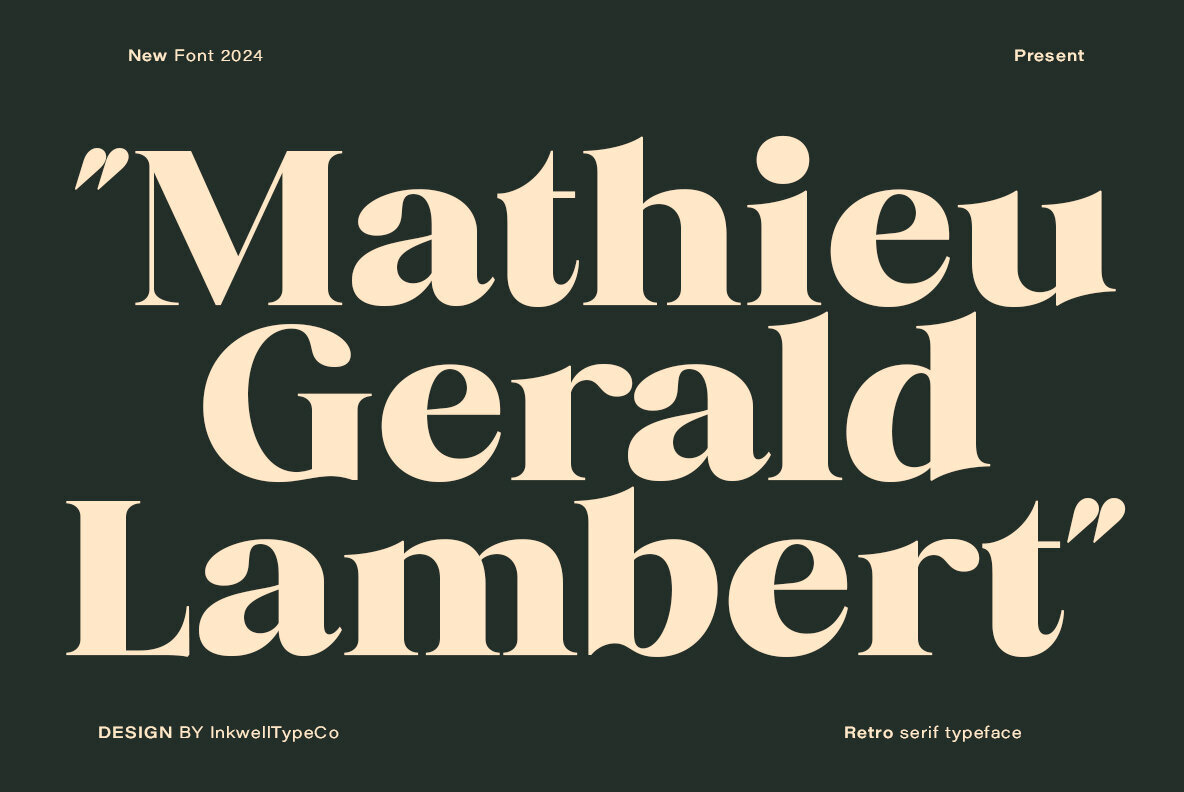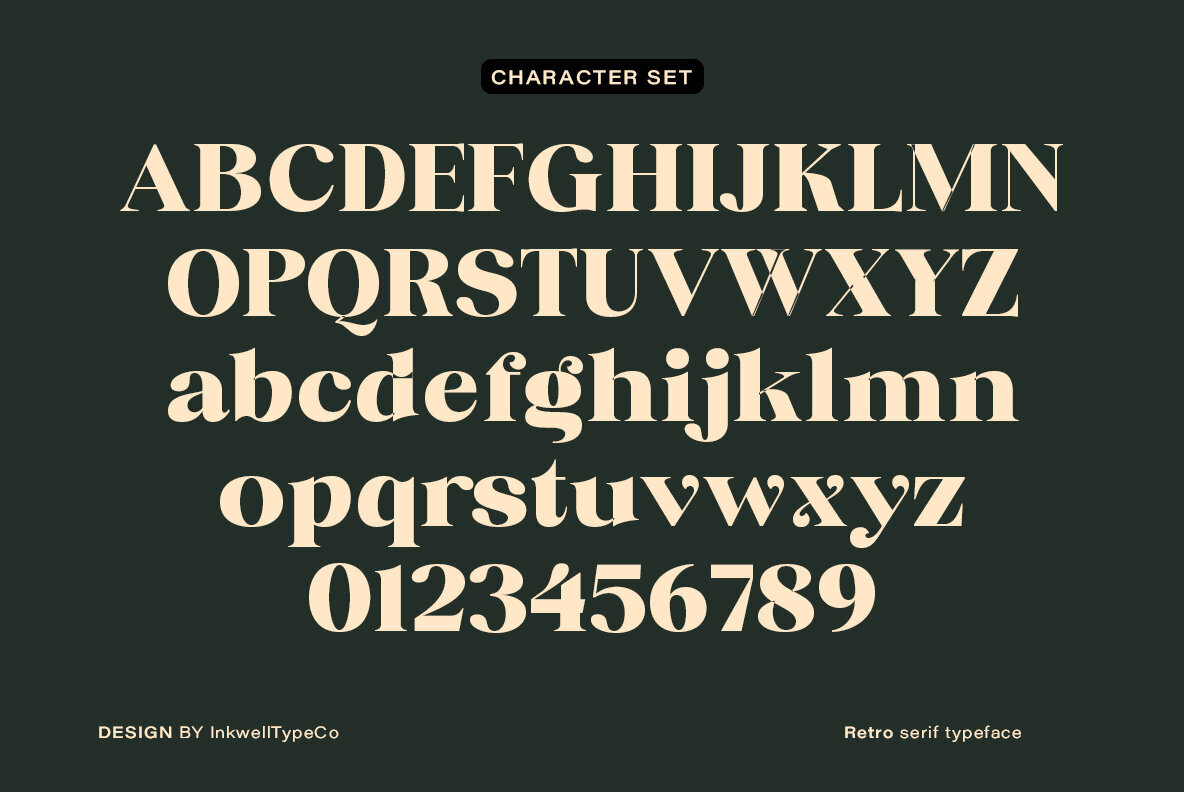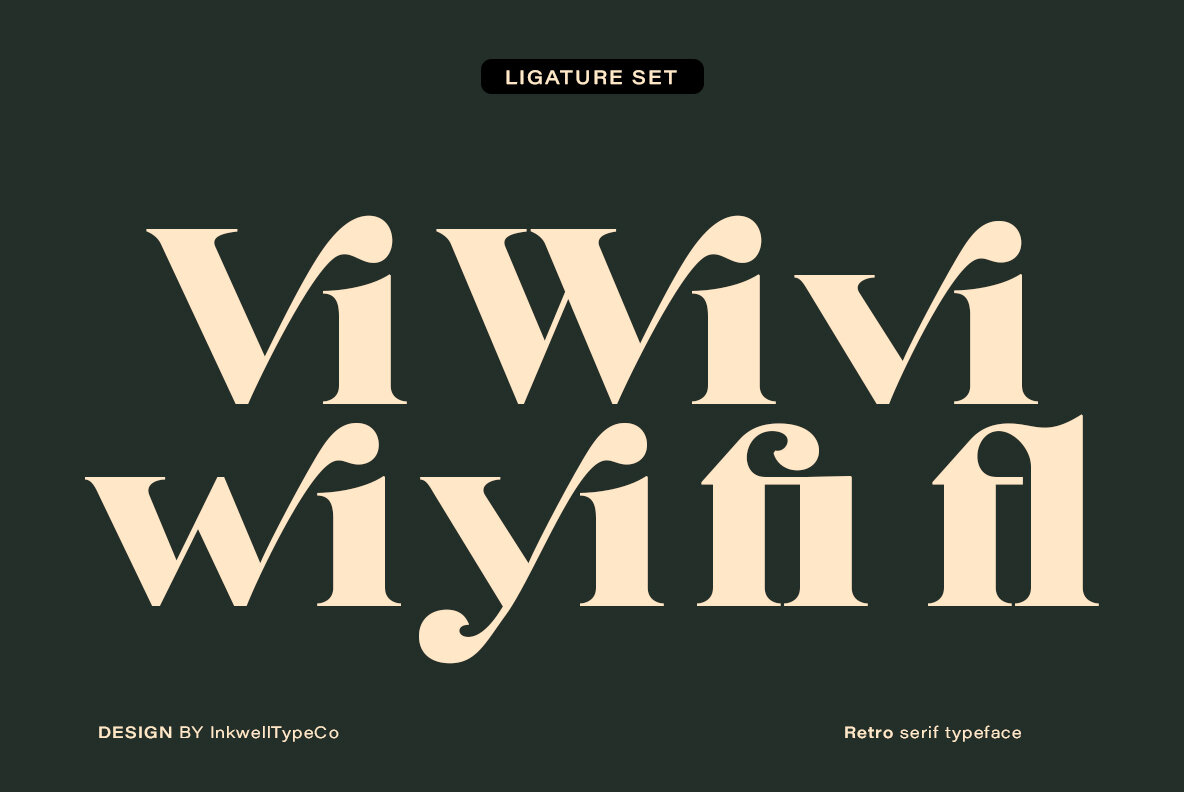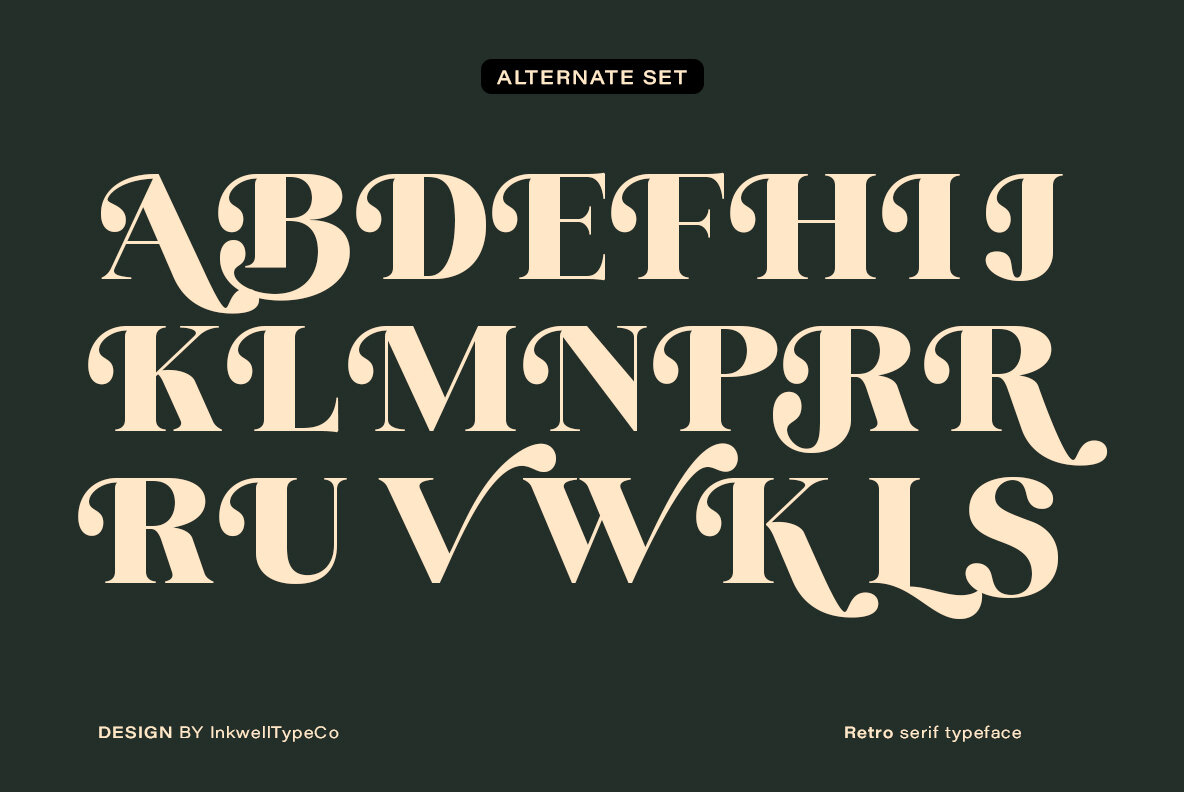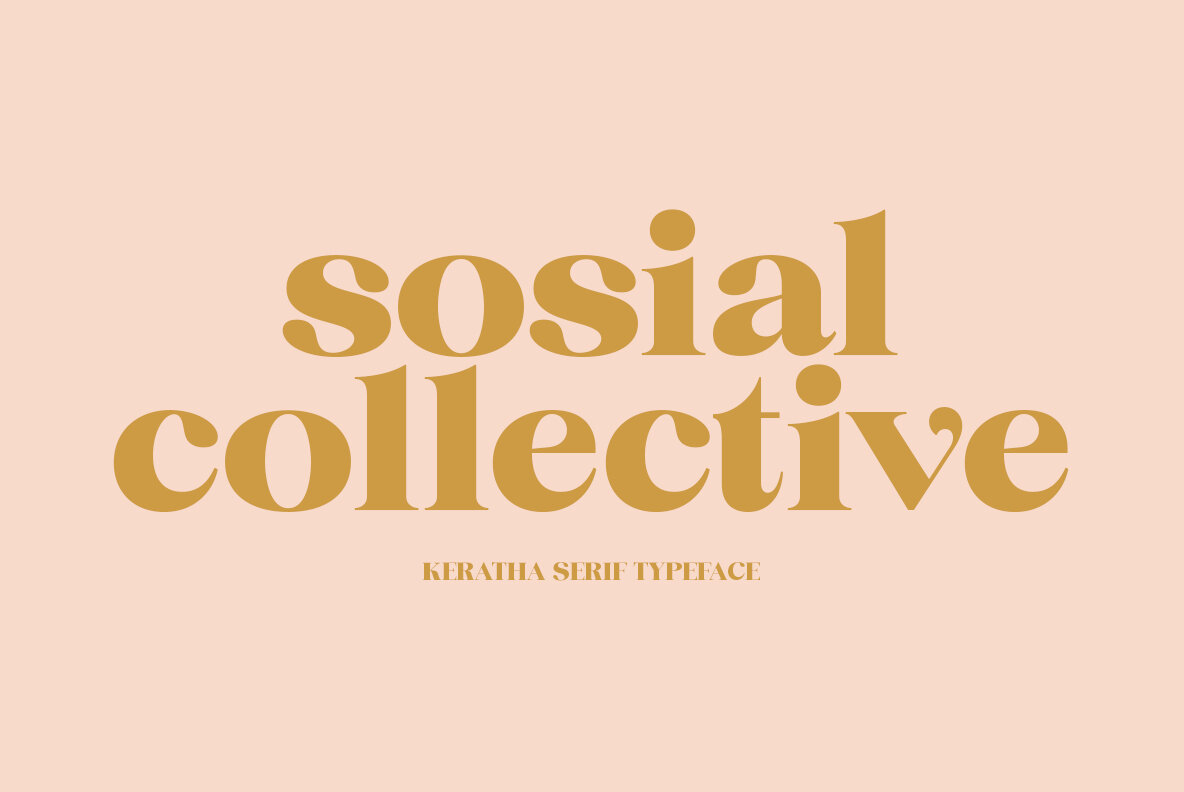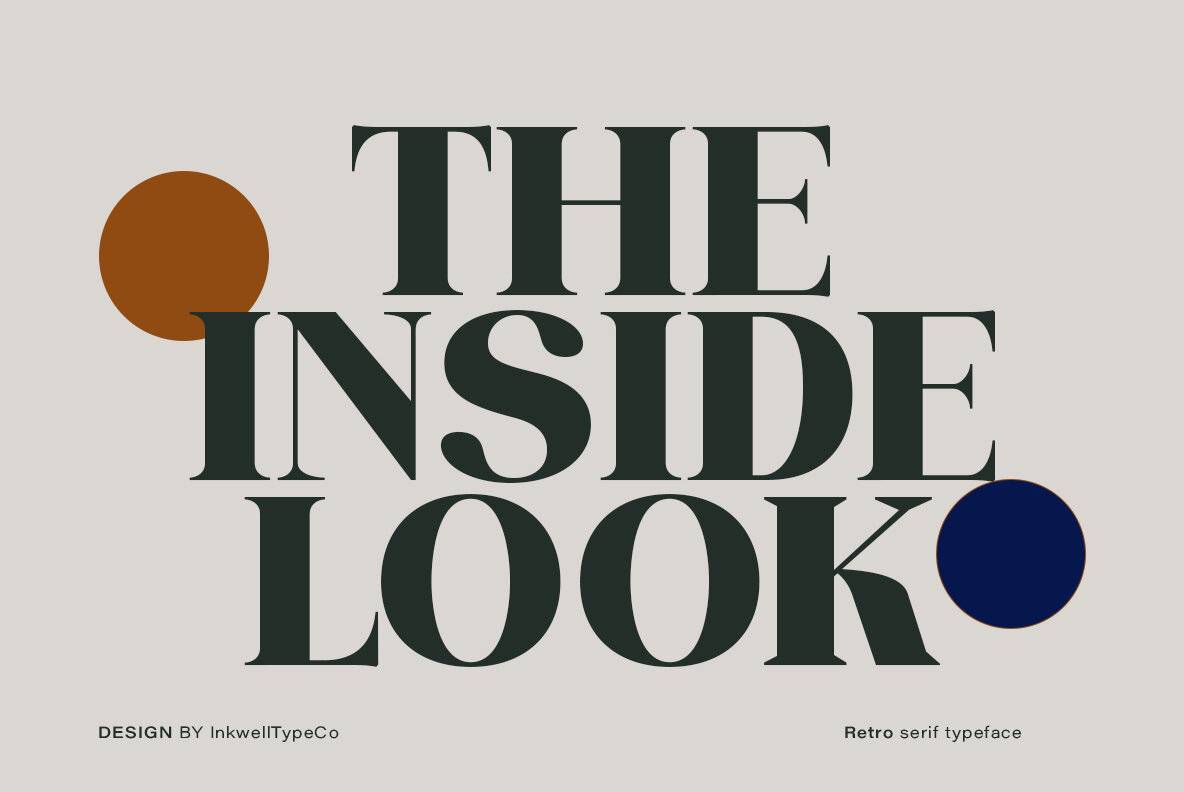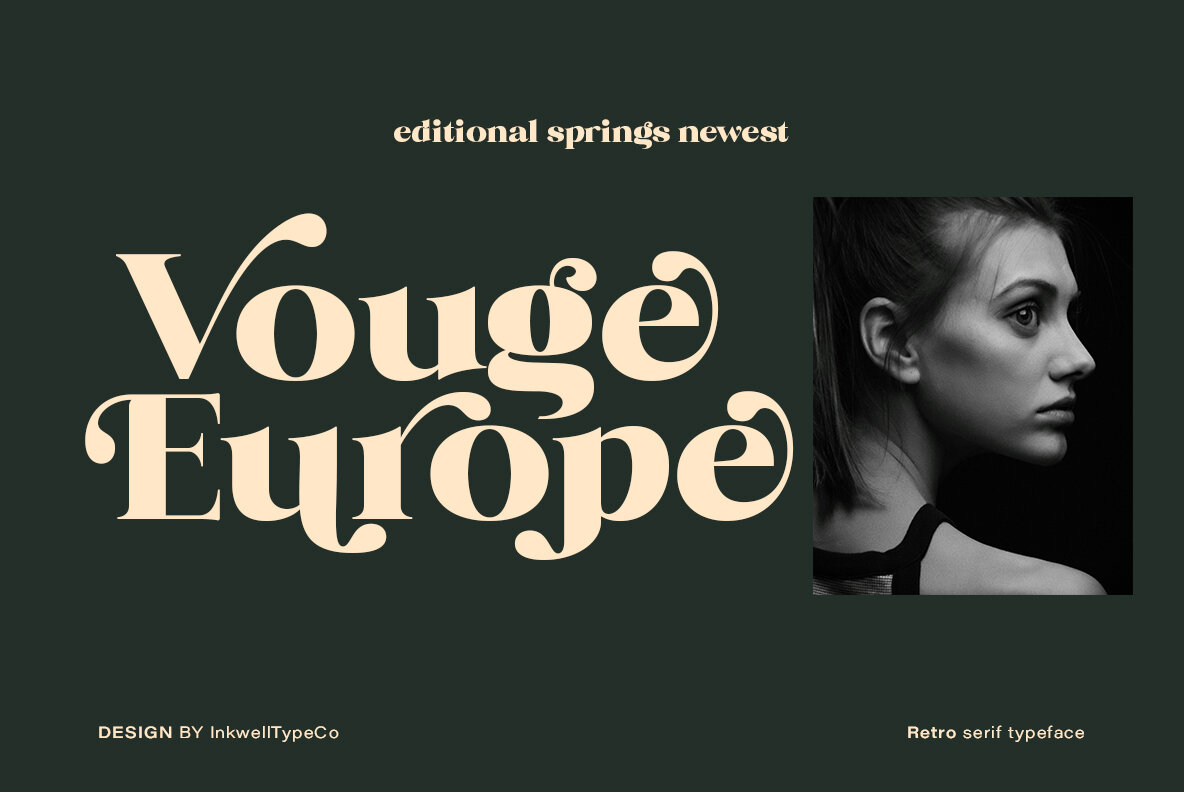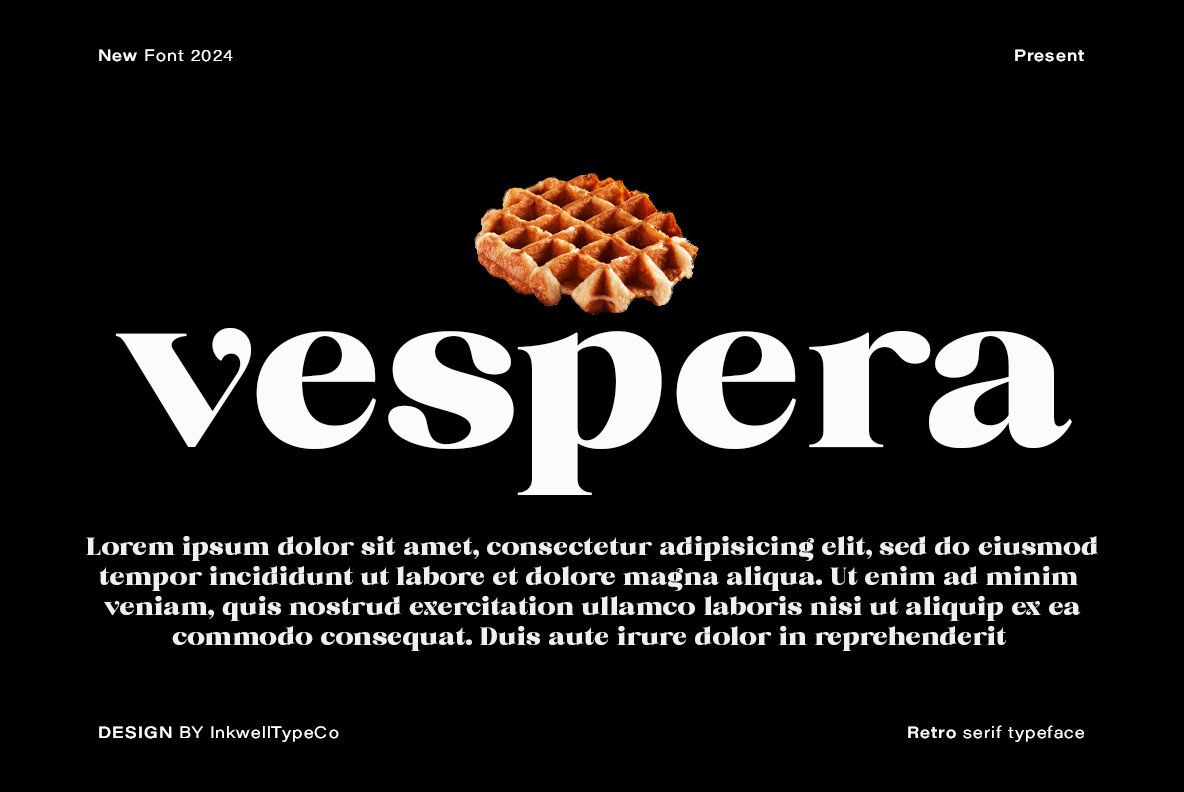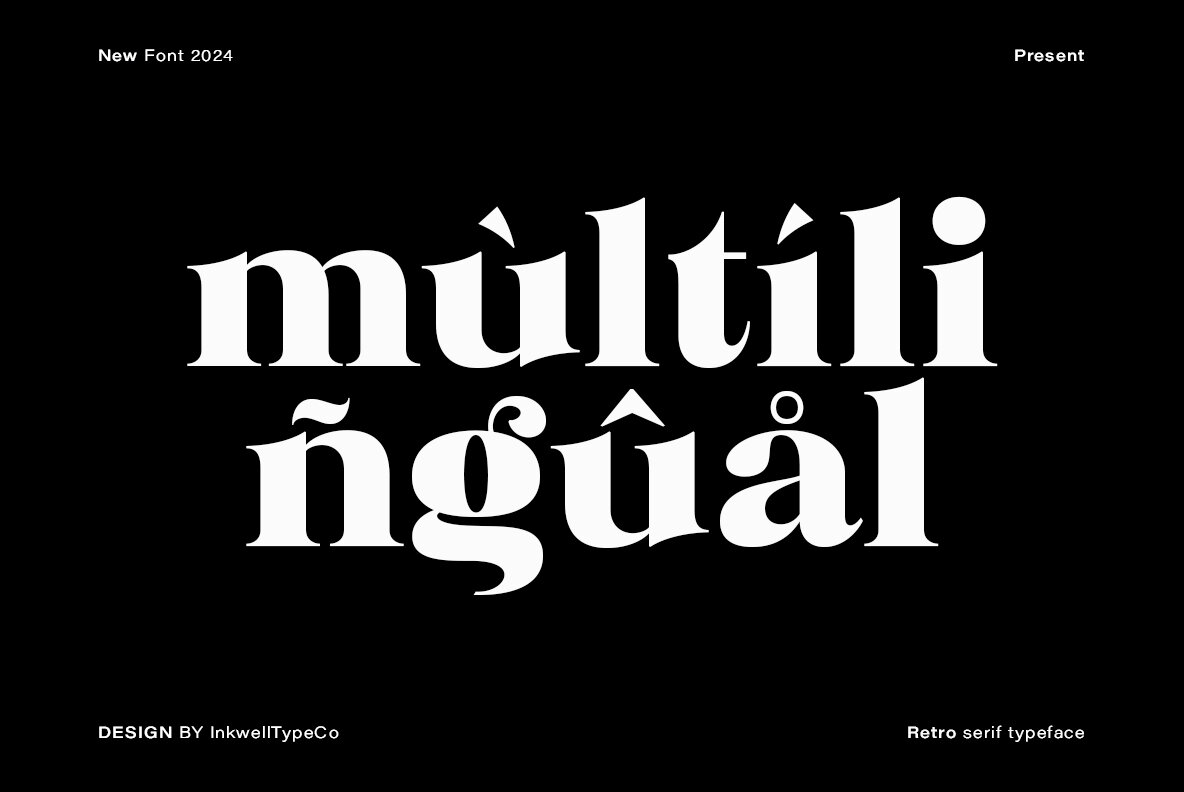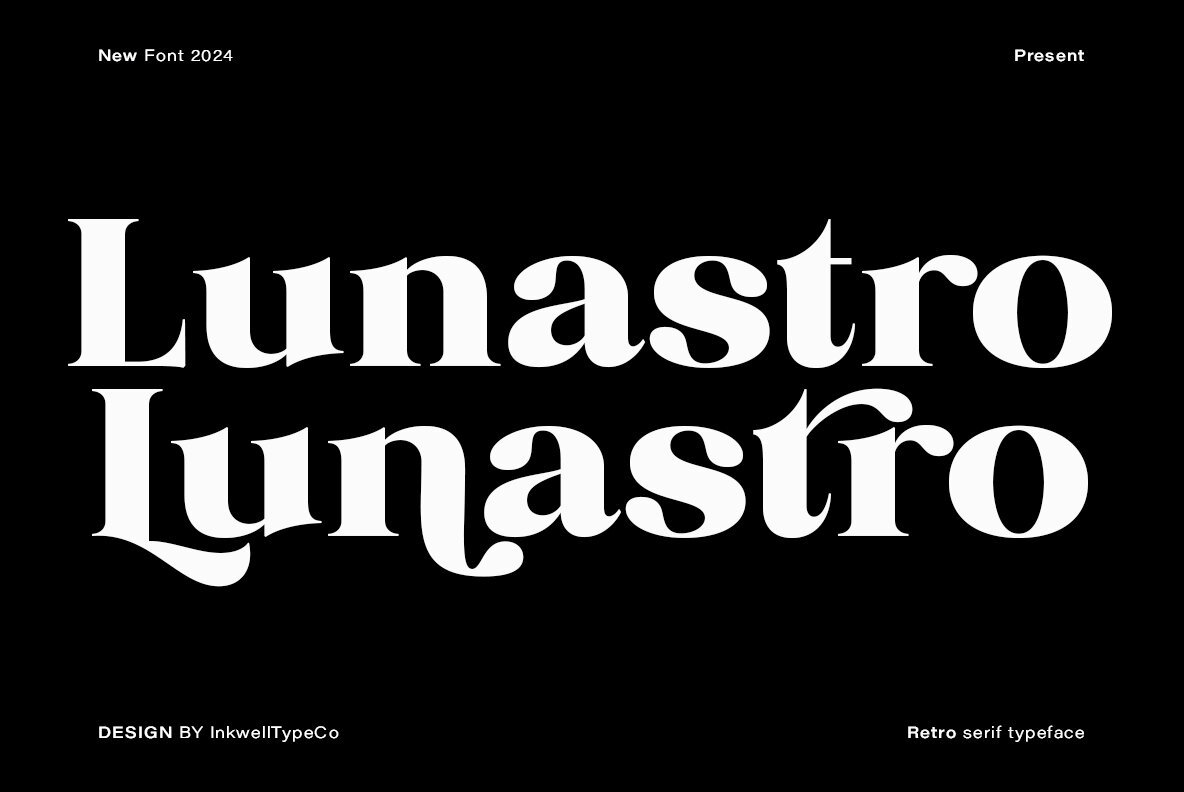
Keratha Font
Keratha is a versatile typeface that merges modern retro aesthetics with inspiration from the Art Deco movement of the 1920s. Featuring geometric forms and an elegant flair, Keratha adds a unique touch to any design project. With 10 different styles, this typeface offers the flexibility needed for a variety of applications, including branding, editorial, and social media. Its bold shapes and subtle details contribute to a sophisticated and distinctive look, making it a valuable asset for creative endeavors.
Supporting Latin European languages, Keratha ensures global appeal and ease of use across diverse contexts. Designed to bring a classic vibe with a contemporary twist, this typeface is ready to elevate your design work. Its combination of historical inspiration and modern versatility makes Keratha a standout choice for those looking to infuse their projects with a timeless quality.